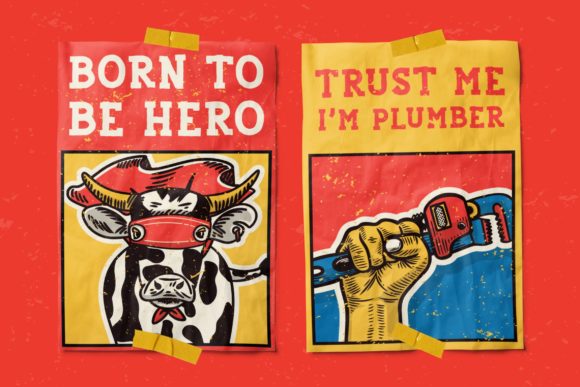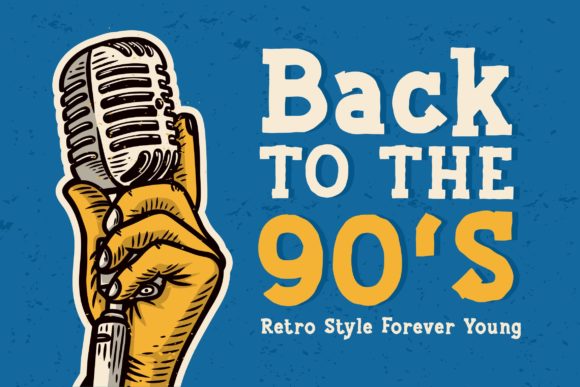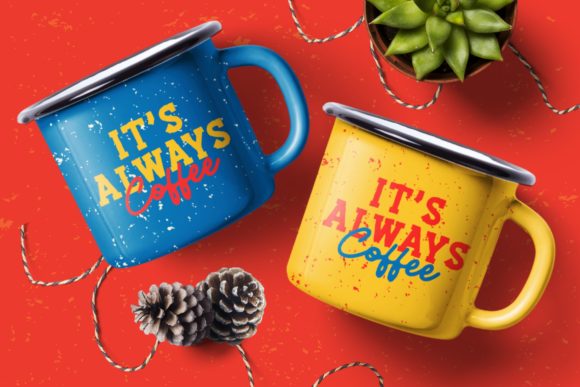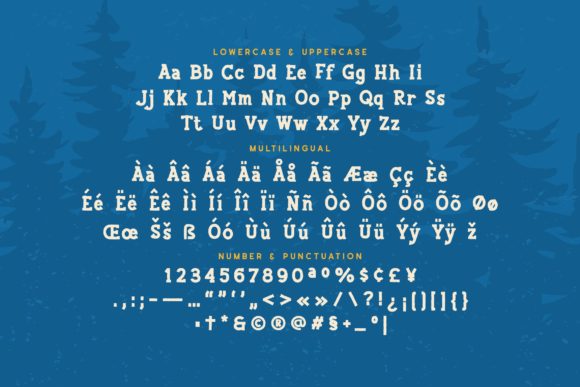
Introduction to Nepple Font
Nepple is a unique and chunky lettered display font.
Add this font to your creative ideas and notice how it will make them stand out .
Key Features of Nepple Font
Why Choose Nepple Font?